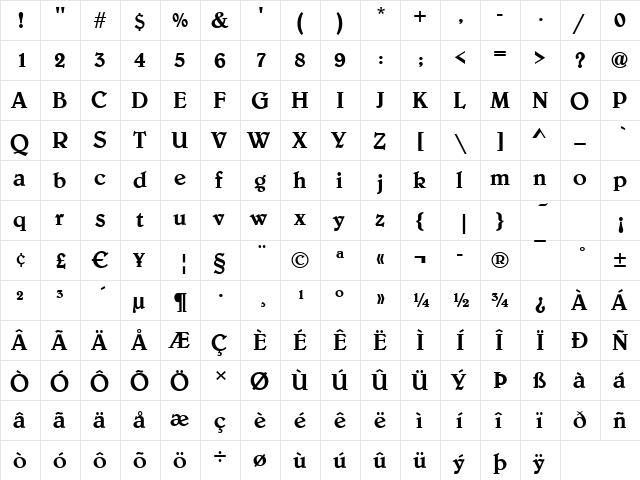
Benson-Medium Regular
Design Context for Benson-Medium Typeface
Benson-Medium takes a measured approach to typography — its balanced proportions and neutral character make it a reliable workhorse for both digital and print work.